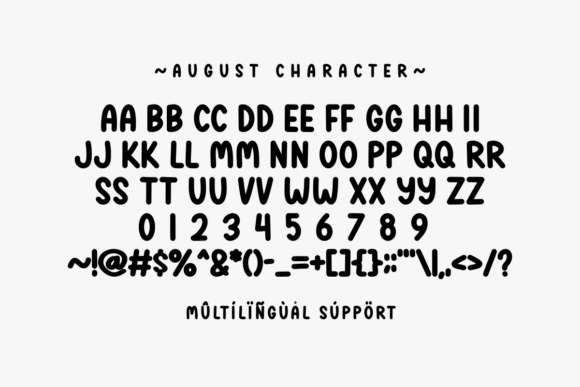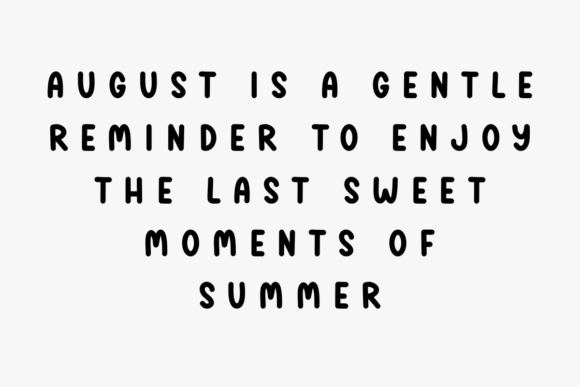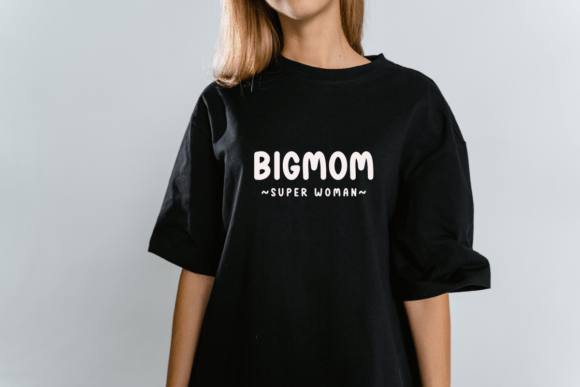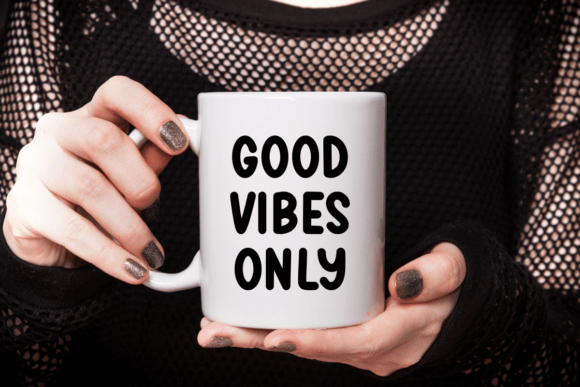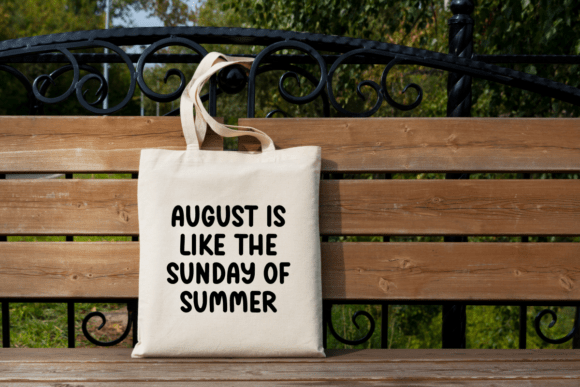
The Perfect Font for Your Creative Projects
Have you ever stared at a blank page, trying to decide on the perfect font to bring your creative idea to life? It’s a feeling we’ve all been there, and it’s a moment that can make or break the entire project. But what if you had a font that was designed specifically for those moments of creative inspiration?
Enter the August Font, a cute and versatile sans serif font that’s perfect for adding a touch of personality to your projects. Whether you’re a seasoned designer or a crafty hobbyist, the August Font is a valuable tool in your creative arsenal. With its clean lines and playful feel, it’s suitable for everything from stickers and notes to planners and wall art.
August Font Key Features
- Font Family: August is a sans-serif font family designed for digital use.
- Font Size: Available in 6 weights, ranging from Light to ExtraBold.
- Resolution: Designed for use at high resolutions, ideal for screens and digital applications.
- Unique Characteristics: August features a clean and modern design with subtle rounded edges, making it suitable for a wide range of digital applications, including web design, mobile apps, and digital signage.
August Font Review
I recently had the chance to work with the August font, and I must say it’s a beautiful addition to any design project. ✨ One thing that stands out is its elegant and refined feel, perfect for creating a sophisticated and modern look. The font’s clean lines and minimalist design make it easy to read and understand, even at smaller font sizes.
Another advantage of the August font is its versatility. ✨ It can be used for a wide range of applications, from corporate branding to editorial content. The font’s neutral tone also makes it easy to pair with other fonts and design elements.
However, there are a few limitations to consider. ⚠️ For one, the August font may not be the best choice for projects that require a bold or attention-grabbing look. Additionally, the font’s relatively small character set may limit its use in certain contexts.
Overall, I think the August font is a solid choice for designers looking to create a clean and sophisticated look. While it may not be the best fit for every project, it’s definitely worth considering for projects that require a refined and elegant feel.
Pros and Cons:
- ✨ Elegant and refined feel
- ✨ Versatile and easy to pair with other fonts
- ⚠️ May not be suitable for bold or attention-grabbing projects
- ⚠️ Relatively small character set
Getting the Most Out of August Font
To get the most out of the August Font, experiment with different font sizes and styles to create visual interest. Use the font in conjunction with other design elements, such as images and graphics, to create a cohesive look.
The August Font is suitable for a variety of applications, including:
- Marketing materials, such as brochures and flyers
- Website and blog content
Alternatives to August Font for Designers
August Font is a popular sans-serif font known for its clean and modern aesthetic. However, designers often look for alternatives to add variety to their projects. Here are a few options to consider:
Montserrat Font is a sans-serif font designed for urban environments. It features a strong, geometric structure and is perfect for creating a modern and industrial look. Montserrat is ideal for use in headings and titles, as it’s highly legible and attention-grabbing. Compared to August Font, Montserrat has a more angular and edgy feel, making it a great choice for designers who want to add a bit of grit to their projects.
Open Sans Font is a clean and modern sans-serif font designed for digital interfaces. It’s highly legible and features a neutral tone, making it perfect for use in body text and content. Open Sans is a great choice for designers who want a font that’s easy to read and doesn’t compete with the content. Compared to August Font, Open Sans has a more rounded and approachable feel, making it a great choice for designers who want a friendly and approachable tone.